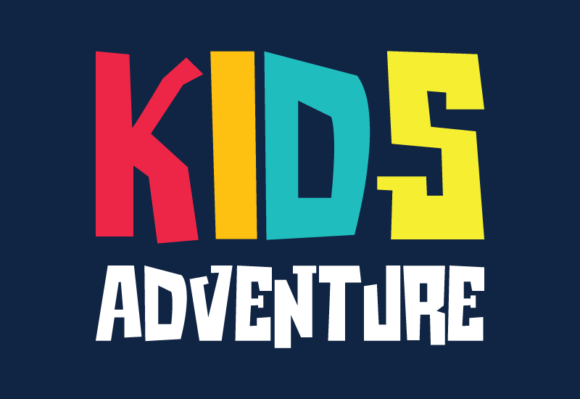
Kids Adventure Font
Immerse yourself in the playful charm of Kids Adventure Font, a typeface that infuses every project with the joy of youth. This unique font boasts a collection of vibrant, joyous characters inspired by children’s whimsical doodles and handwritten letters. Kids Adventure Font is the perfect tool to add an element of delight and amusement to any child-focused endeavor, allowing you to effortlessly translate a sense of fun and happiness into visual design. Experience the free-spirited expression of childhood and infuse your projects with heartwarming charm with the Kids Adventure Font.